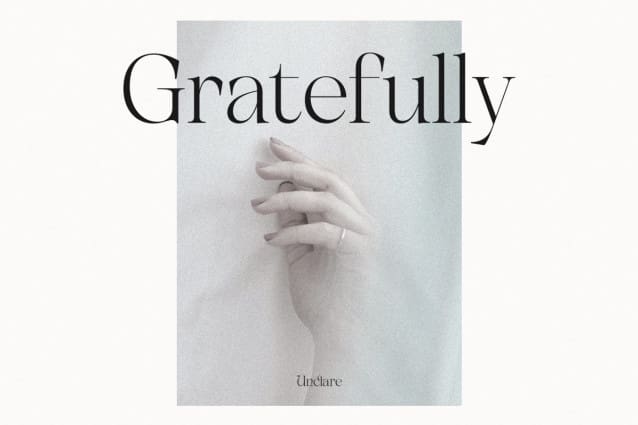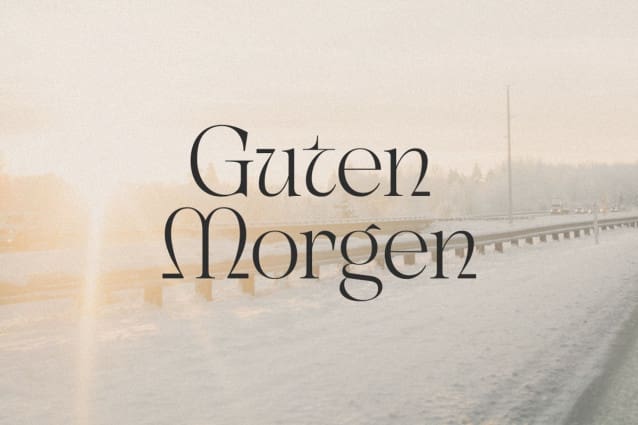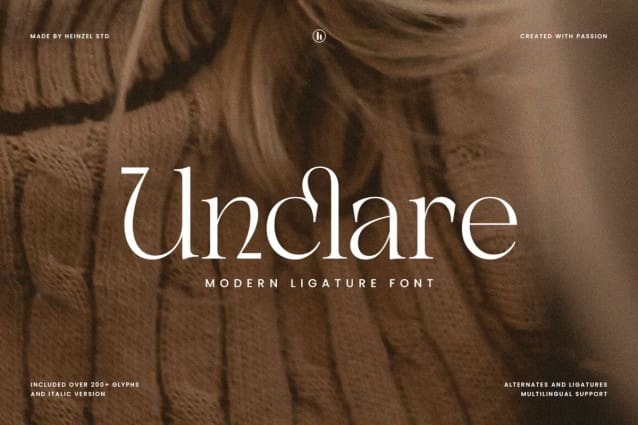
Unclare Font
Unclare Font is an elegant and modern ligature serif font. Fall for its captivating style and use it to create gorgeous logos, headlines, branding, wedding invitations, beautiful stationary art, eye-catching social media posts, and much more!